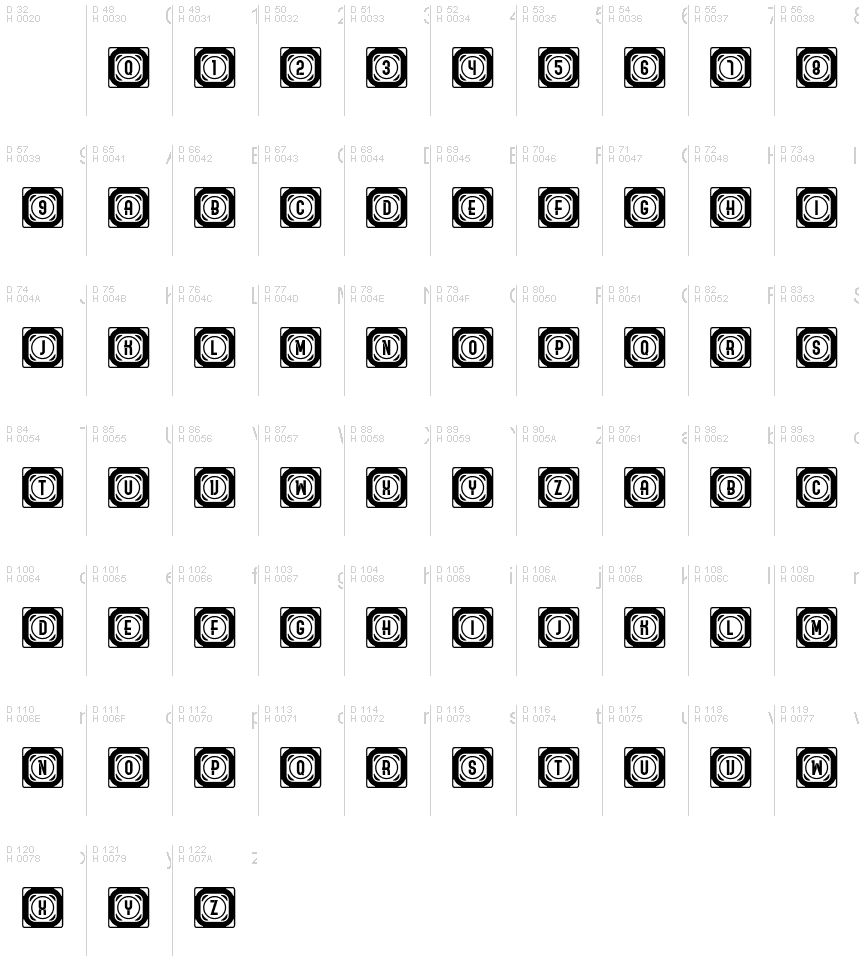
Ordinary Capitals Inverted Regular
Ordinary Capitals Inverted is a breathtaking display font designed by Vladimir Nikolic. Its decorative style and semi-light weight make it perfect for projects that require a touch of elegance and sophistication. Use it to create stunning logos, eye-catching headlines, or even invitations for special events. The inverted lettering adds a unique twist to an otherwise ordinary font family, making it stand out from the crowd. Whether you're designing for print or digital media, Ordinary Capitals Inverted will elevate any project with its intricate details and timeless appeal.